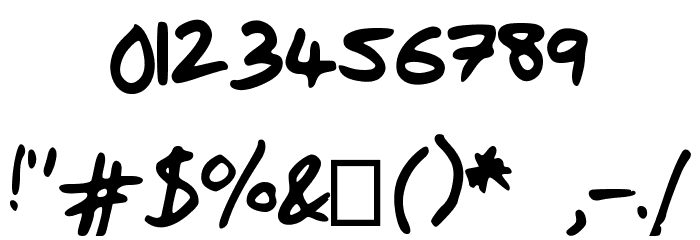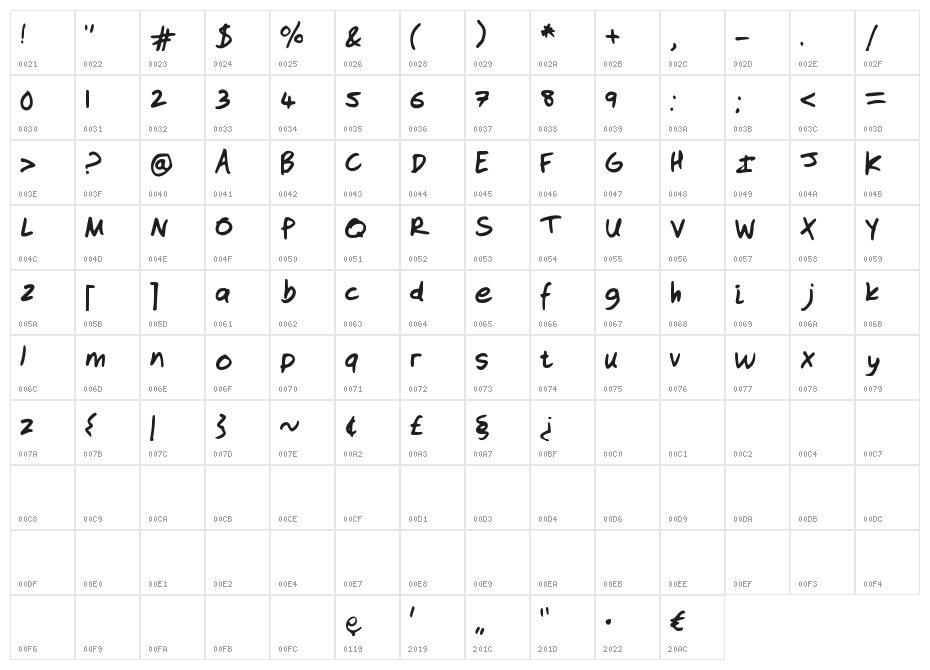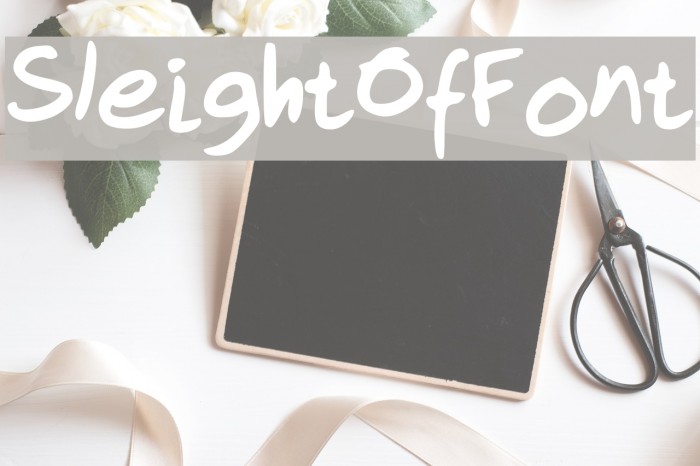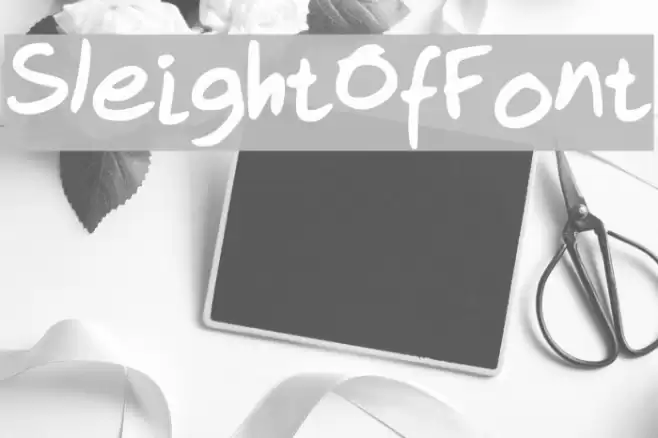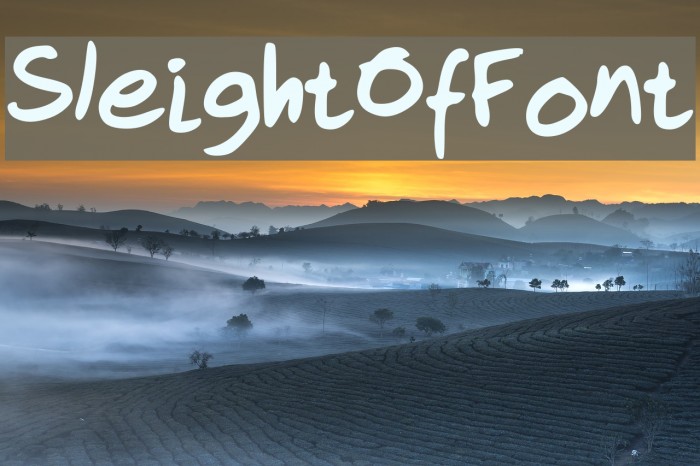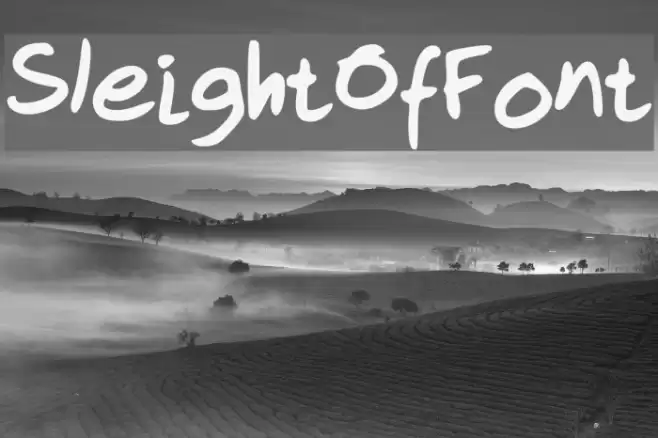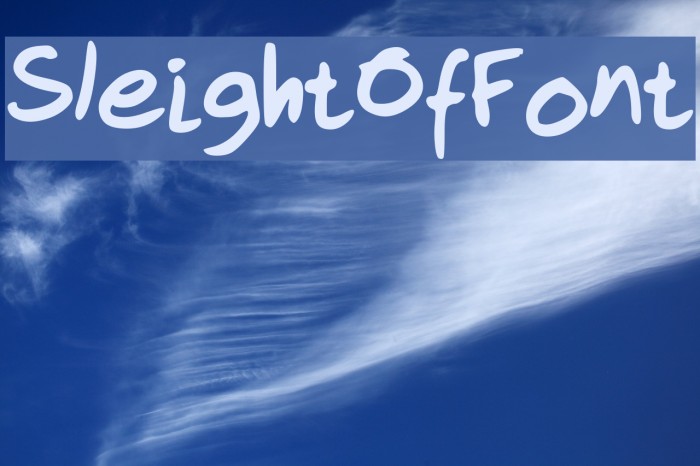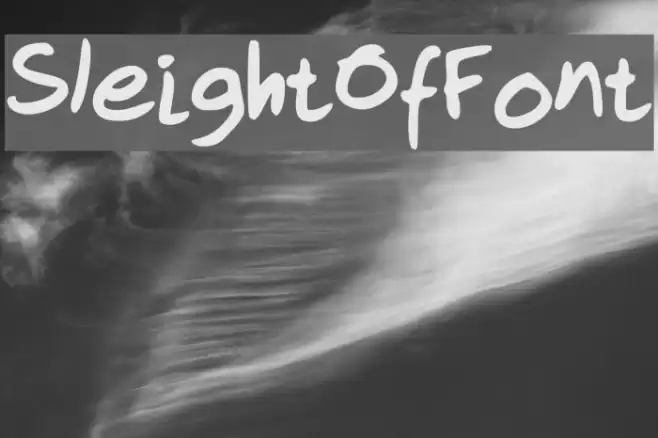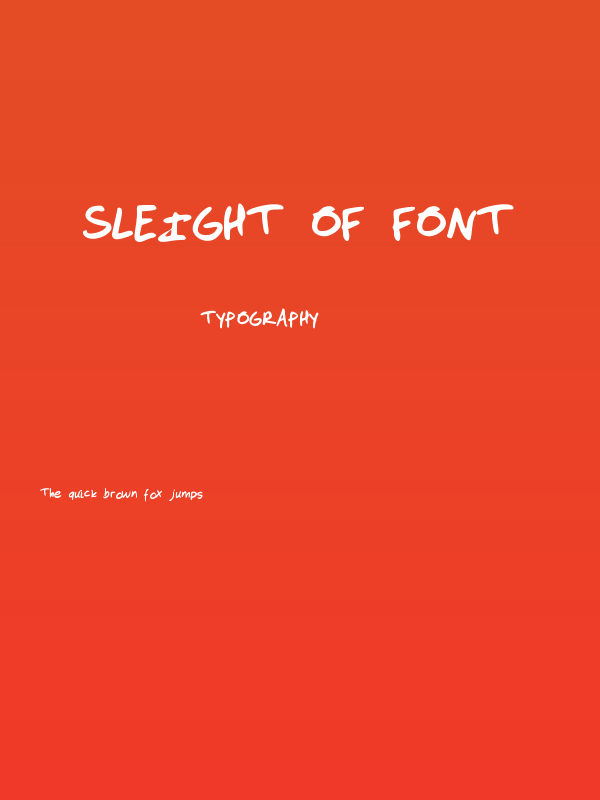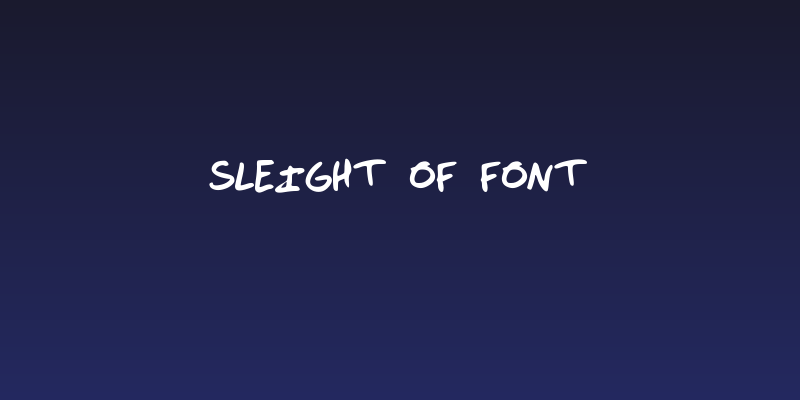
Sleight Of Font Font
Sleight Of Font Description
This font features a playful and casual handwritten style, characterized by its bold and rounded strokes. The letters are slightly slanted, giving a dynamic and informal appearance. The uppercase and lowercase letters maintain a consistent flow, with a natural and organic feel. Numbers and special characters are designed to match the overall aesthetic, ensuring a cohesive look across all text elements. The font's energetic and friendly vibe makes it suitable for projects that aim to convey warmth and approachability.